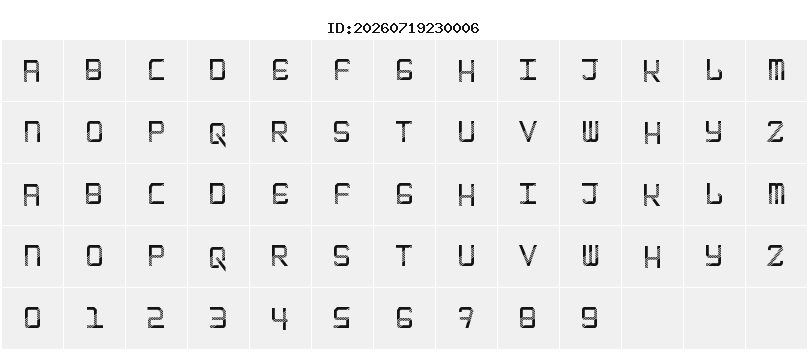
EpicenterDisco Preview
• Font Name: EpicenterDisco
• Full Font Name: EpicenterDisco
• Version: Version 1.00 July 24, 2015, initial release
• Designer: Max Infeld Xerographer Fonts
• Manufacturer: Xerographer Fonts
• Description: Made by Xerographer Fonts in Chico,California
About EpicenterDisco.ttf
EpicenterDisco.ttf is a modern, elegant sans-serif font designed for ultimate readability and visual harmony. Perfect for branding, headlines, web design, and print materials.